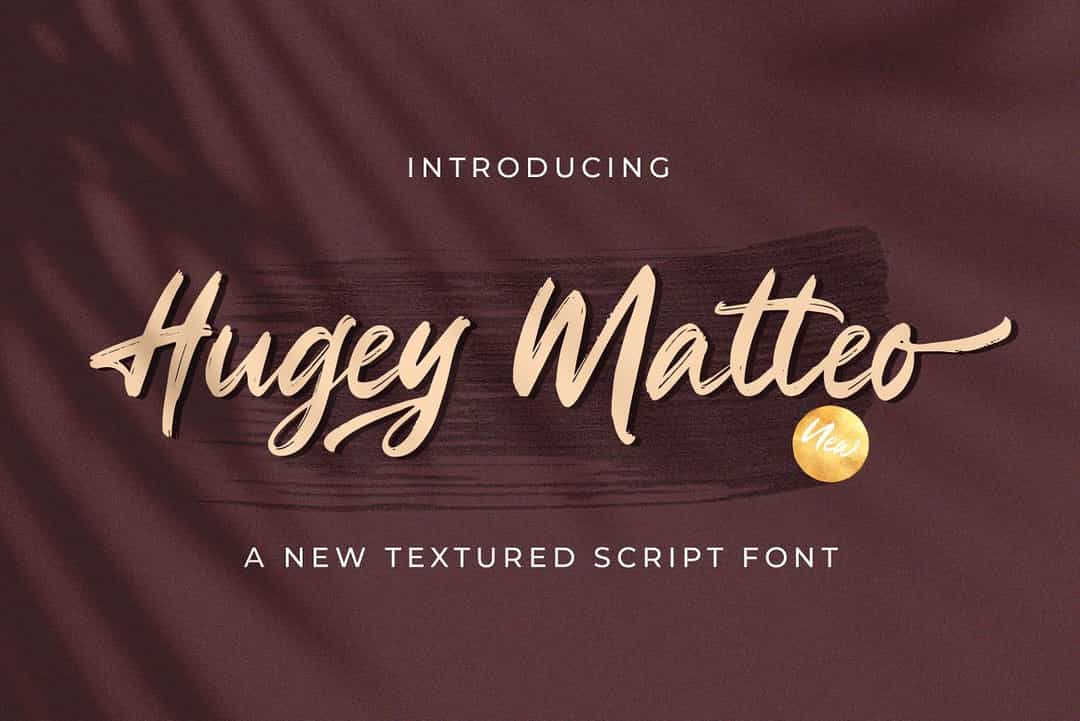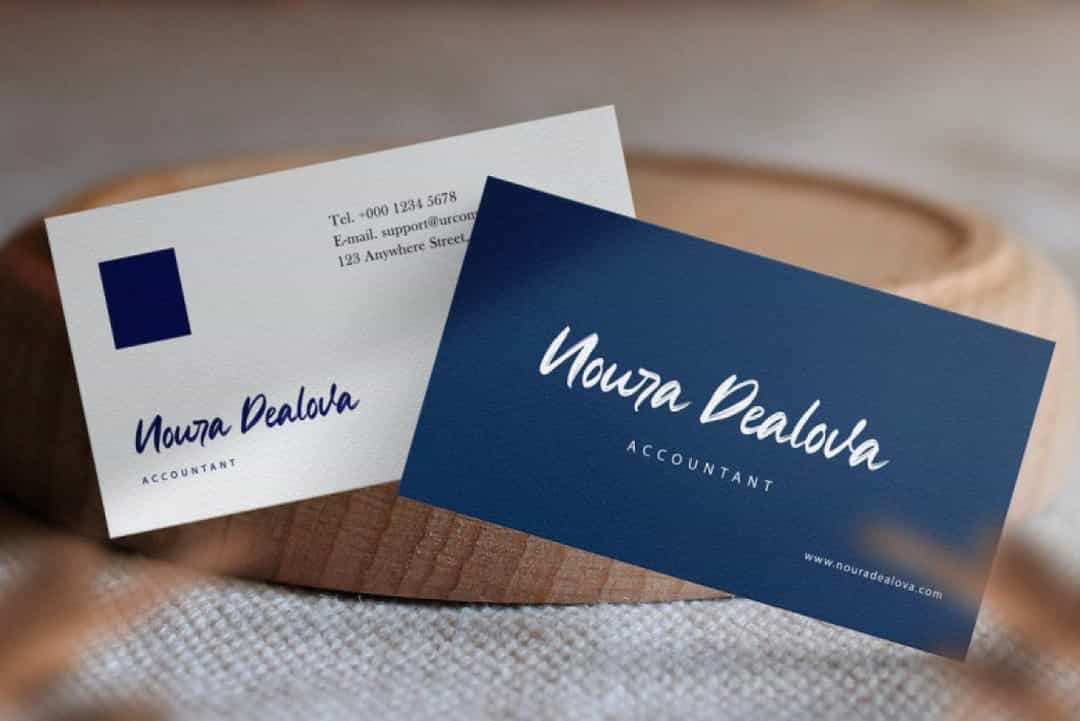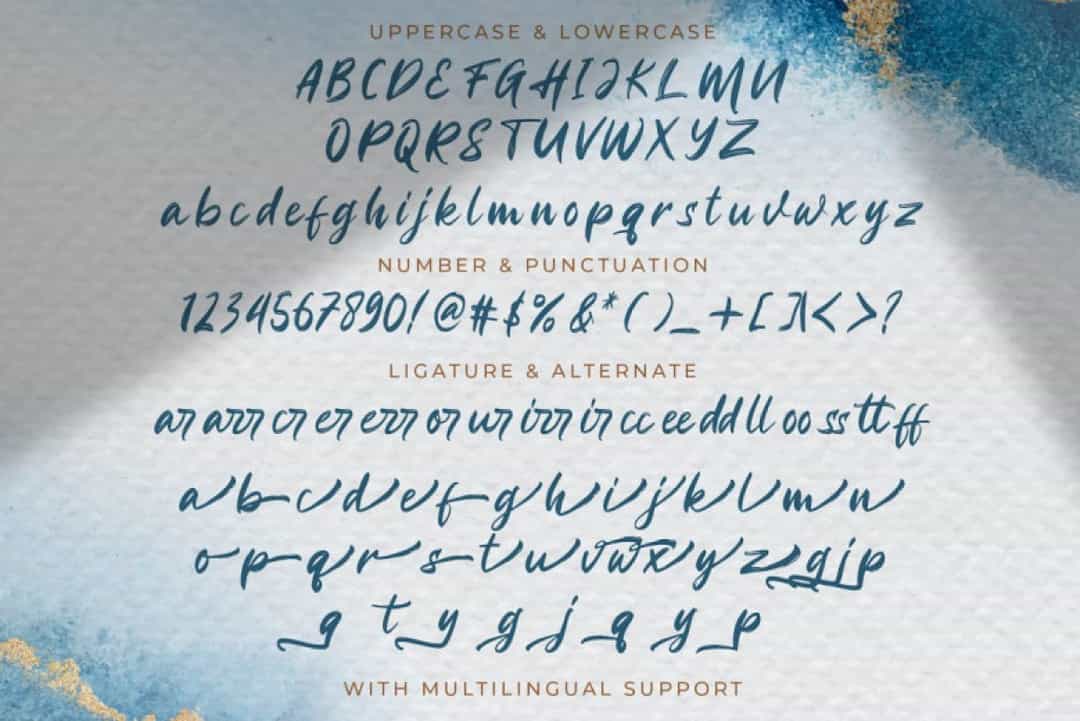
Hugey Matteo is a handwritten script font. Find inspiration in its beautiful style, and incorporate it into all your favorite designs! Use it for logos or badges, insignias, packaging headlines, poster and T-shirt, apparel printings, greeting cards or wedding invitations.